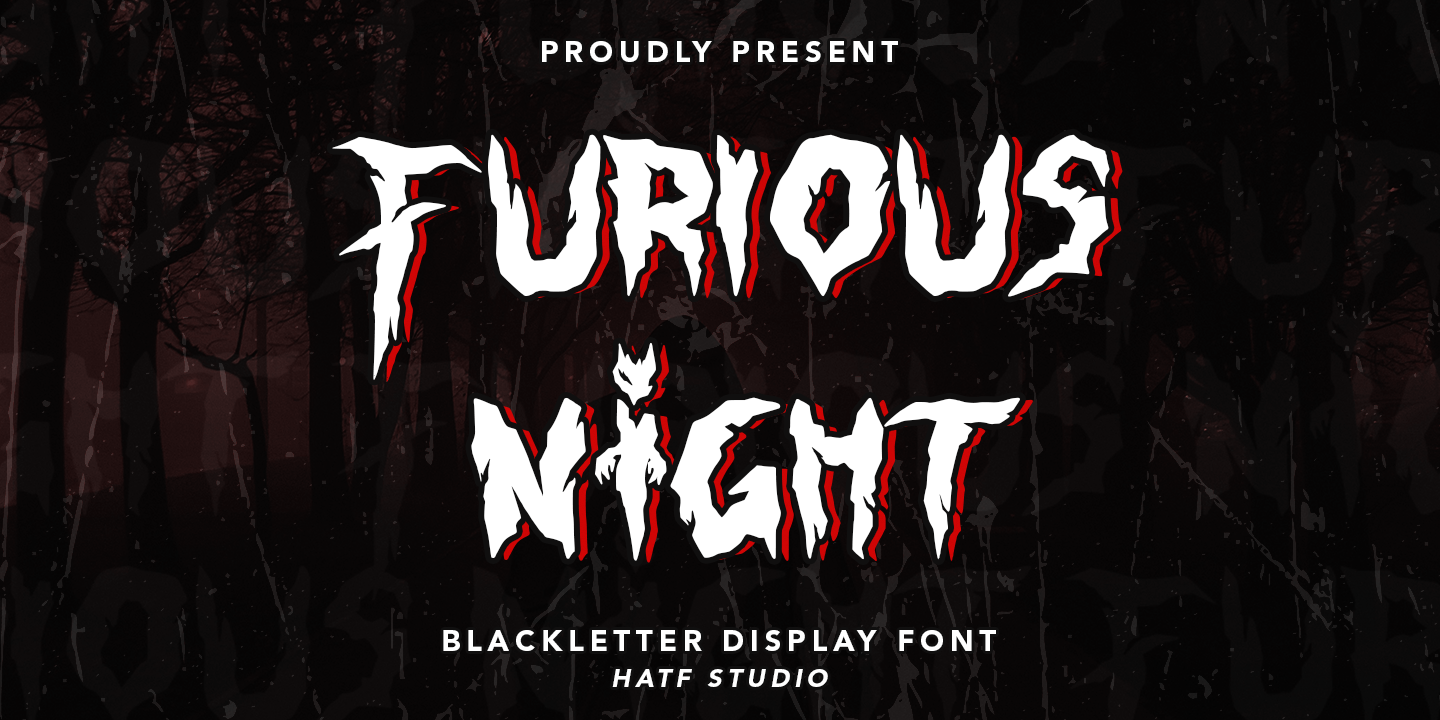
Furious Night Font Free Download – A Dark, Edgy Display Typeface with Intense Energy
Unleash your boldest designs with Furious Night Font Free Download, a high-impact gothic-inspired font that radiates power and rebellion. Perfect for horror themes, metal bands, and underground aesthetics, this font delivers an aggressive, unforgettable presence.
Why Furious Night Font Dominates
1. Brutally Beautiful Features
Razor-sharp serifs with gothic influence
Distressed texture variations
Custom alternates for unique styling
2. Killer Applications For:
Metal band logos & merch
Horror movie posters
Gothic tattoo designs
Dark fantasy book covers
Underground zines
3. Technical Power
How to Command Attention
Halloween party flyers
Dark poetry collections
Gaming clan graphics
Alternative apparel designs
Energy drink branding
Horror video game UI
Tattoo shop signage
Music festival promotions
Pro Tips for Maximum Impact
Layer over blood splatter textures
Use neon-on-black color schemes
Add cracked/distressed effects
Size Matters:
60pt+ for full dramatic effect
Works best in ALL CAPS
Ideal for single powerful words